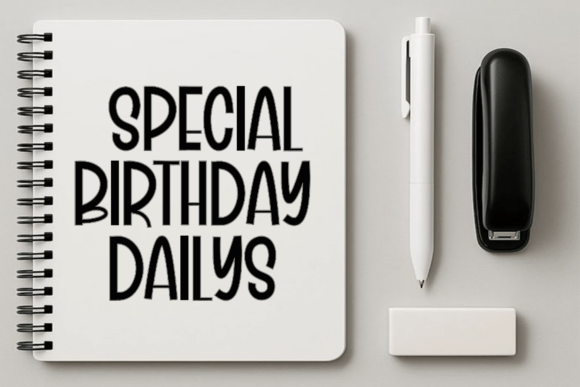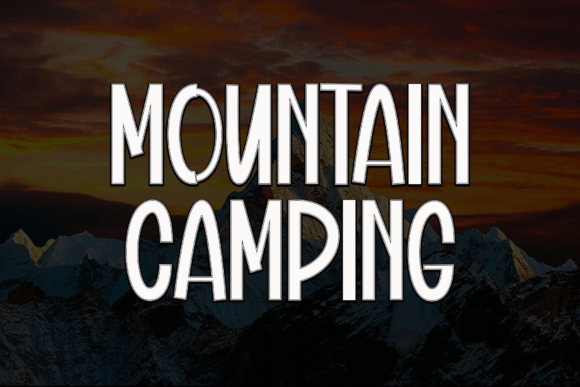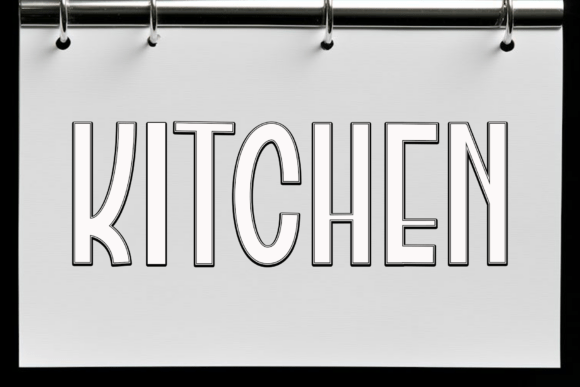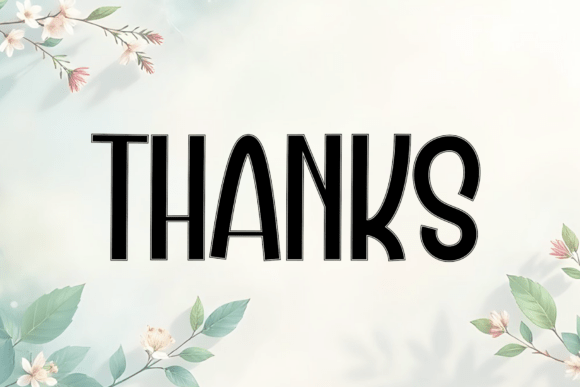
Introduction to Mark Book Font
Have you ever been stuck in a creative rut, staring at a blank canvas or a blank page, searching for the perfect font to bring your idea to life? You know the feeling – the one where you just can’t seem to find the right words to express your vision. Well, let’s break that spell with Mark Book Font, a delightful display font that’s about to become your new best friend.
As designers, we’re always on the lookout for high-quality design resources that can elevate our creative projects. Mark Book Font is a game-changer, offering a unique blend of modern simplicity and playful charm. With its clean shapes, soft edges, and well-balanced letterforms, this font is perfect for adding a fresh and friendly touch to your branding, packaging, social media graphics, and more – all with a transparent background that makes it easy to work with.
Key Features of Mark Book Font
- High-quality font with a transparent background, perfect for creative projects that require a clean and minimalist design.
- Unique characteristics include a modern, sans-serif design and a wide range of language support, including Latin, Cyrillic, and Greek alphabets.
- Designed to be highly legible and versatile, making it an excellent choice for a variety of creative projects, from brochures to websites.
- Comes with a comprehensive character set, including punctuation marks, symbols, and special characters, ensuring that you have everything you need for your design project.
Honest Review: Mark Book Font
As a designer, I’m always on the lookout for high-quality fonts that can elevate my creative projects. Recently, I stumbled upon the Mark Book Font, and I must say, it’s been a game-changer for my design workflow.
Here are some things that work well with the Mark Book Font: ✨
- Unique aesthetic: The font has a distinct, modern look that’s perfect for creative projects.
- High-quality glyphs: The font’s glyphs are clear, crisp, and well-designed.
- Transparent background: The font’s transparent background makes it easy to use on any design background.
However, there are a few limitations to keep in mind: ⚠️
- Limited language support: The font may not support all languages, which could be a problem for designers working on international projects.
- No web font option: Unfortunately, the font is not available as a web font, which could make it difficult to use on websites.
Overall, I’m impressed with the Mark Book Font. It’s a great design resource for creative projects, and its high-quality glyphs and unique aesthetic make it a standout choice. While it has some limitations, I think it’s well worth using in your next design project.
The Mark Book Font is perfect for various design projects, including business cards, brochures, and social media graphics. Its high-quality design and transparent background make it a great choice for creating professional-looking designs.